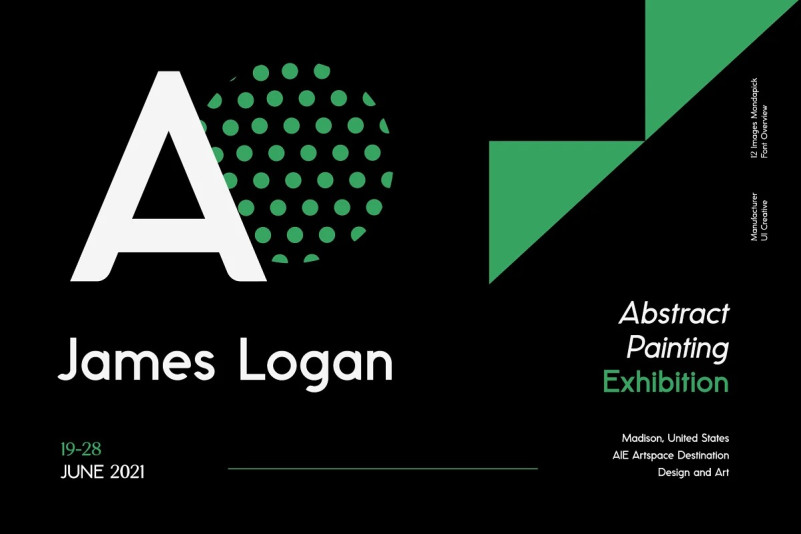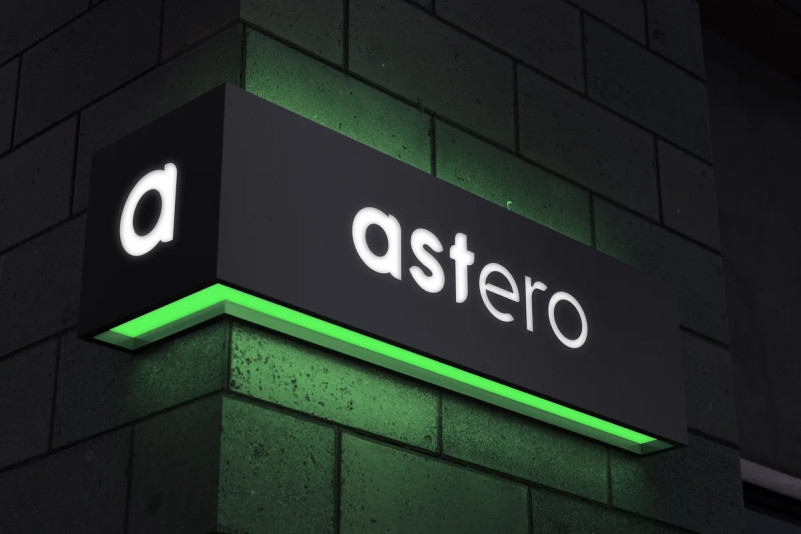
Mondapick Font
Mondapick Font – Sans Serif Font Family. Modern Serif font that feels beautiful classy, elegant, and modern. This font is ideally suited for a wide variety of projects, such as signature, stationery, logo, wedding, typography quotes, magazine or book covers, website headers, clothing, branding, packaging design, and more. Also, fashion-related branding or editorial design displays both masculine and feminine qualities.